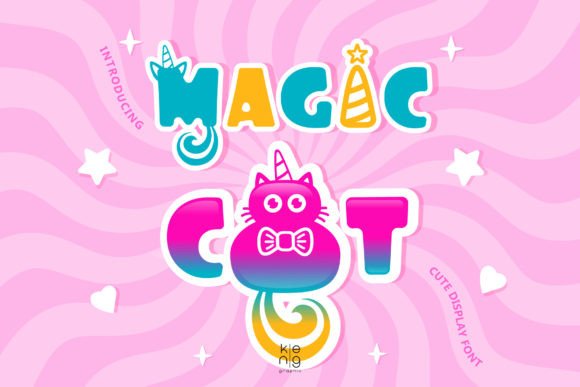
Step into a world of captivating designs with Magic Cat Font, the ultimate Handwritten-style Cartoon decorative font. Unleash your creativity and let your imagination soar as you embark on a typographic adventure with this remarkable font. Crafted with intricate details and a playful spirit, Magic Cat Font is a masterpiece that will transform your designs into captivating works of art.
With Magic Cat Font, you'll embark on a journey of visual enchantment, leaving a trail of awe-inspiring designs in your wake. Every letter, every curve, and every stroke is meticulously designed to evoke emotions and capture attention. Let your words dance with charm and charisma as they take center stage in posters, comics, games, cards, and social media posts.
Whether you're a seasoned designer or just starting out, Magic Cat Font is your passport to a world of endless possibilities. Embrace the allure of uniqueness and let your creativity shine. PUA-encoded for effortless access to glyphs and swashes, this font is a breeze to use, ensuring a smooth and enjoyable design experience.
Magic Cat Font is more than just a font; it's an invitation to let your imagination run wild. Let your designs speak volumes with this extraordinary font that captivates and inspires. Join the creative revolution and unlock the true potential of your designs with Magic Cat Font today!